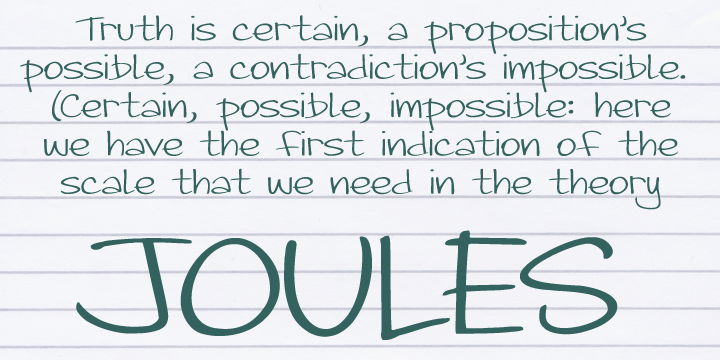
This energetic typeface is perfect for renewable energy companies, electrical engineering firms, scientific research publications, energy efficiency campaigns, power technology branding, physics education materials, sustainable energy promotions, and technical communications that require dynamic energy and scientific sophistication with electrical precision and sustainable authenticity.
Joules Font is exciting because it brilliantly captures the essence of electrical energy and scientific precision through its dynamically charged letterforms that evoke the flow of electrical current and the measurable power of energy systems. The font's distinctive character design and scientific aesthetic reflect the world of energy physics and electrical engineering, making it perfect for technology companies that want to convey scientific accuracy, energy efficiency, and the kind of electrical sophistication that appeals to engineers and scientists seeking authentic energy solutions and precise technical communication.
The Joules Font family includes energy-inspired variations and scientific styling options, featuring light, regular, medium, and bold weights, along with electrical design elements and energy alternates that provide technology companies and designers with comprehensive typographic tools for creating authentic energy branding and powerful scientific communications.
Energize your brand identity with Joules Font Free Download, a typeface that brings electrical sophistication to contemporary energy and technology branding projects. This exceptional font combines scientific precision with sustainable functionality, making it an essential resource for energy companies, research institutions, and designers working on renewable energy or scientific technology marketing campaigns. The energetically crafted letterforms ensure excellent readability while conveying the electrical authenticity and scientific sophistication that defines this distinctly energetic and authentically physics-inspired typeface.